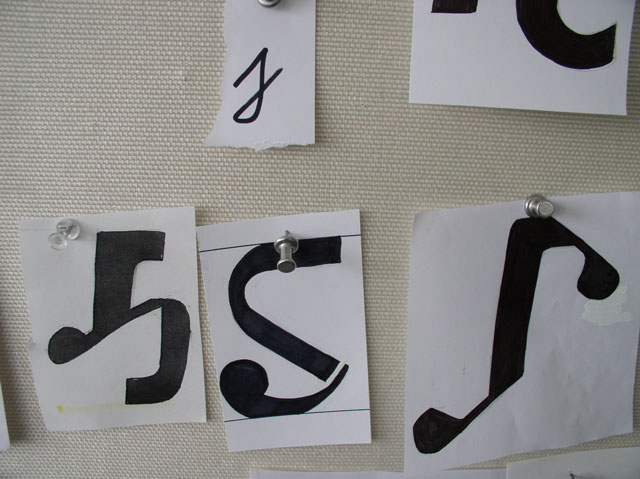
![]() day 1 : day 2 : day 3 : day 4 : day 5 : day 6 : day 7 : final result ![]() The third day the students began the day by placing each their designated characters from the selected aesthetic on the wall. By categorizing the characters the students then began a discussion over which characters were working aesthetically, conceptually, and in relation to the other forms. The diversity in forms from one character to another challenged the group in choosing a selective set that best represented the visual direction that they thought the typeface should follow. A wall of selected characters was formed (row 4). Several studies were created using the selected characters to find problems and positive aspects of the characters. The group then decided on a common word 'HAMBURGE" to explore individually with the selected characters (row 5 & 6). Each student resolved the word using his/her interpritation of the typeface. During the discussion of these explorations a single example was choosen, (last square). For tommorrow the students were given a few characters to digitalize. ![]()
![]() 6 comments so far: read comments ![]() ![]() The HAMBURGLAR -- Wednesday, April 9 2003, 04:56 am That DETROIT crew is taking to the meat! Looks good. Some of the type being generated has a nice blend of a strong metal type solidity, and fluid forms. The integration and attention to more fluid curves and spacing seems to be the direction of the final selection, which I think is going to produce a nice final piece. NICE WORK KEEP IT UP Bas -- Wednesday, April 9 2003, 10:01 am that's getting somewhere. Fuck the contrast, it's good that you skipped it. The more 'metal' like, the stronger it gets to me. I think for the one which was chosen in the end (last picture), it can stil have a more though character. Now it still looks a bit in between to me. Not really curly or organic, but also not very 'heavy metal' (!) or though. I would definetely make it more stronger without taking the life away there. But very simple things, like the ending of the 'm' can already bring lots of life in there. Next to this, I have the feeling that the inner forms are too different (size, form, feeling> unify!). And also the thin parts are too thin and likely to break or at least very hard to cut out of metal in the end. Bas -- Wednesday, April 9 2003, 10:01 am o ja, maybe you are interested in the work of the Dutch master of metal type: http://www.atelierreneknip.nl/ Kelli -- Wednesday, April 9 2003, 04:34 pm All this type drawing reminds me of my first typography class at CCS... I think we had to draw Helvetica by hand and it was hard. It's nice to see people working together to make type. I hope when it's all said and done some of you feel the urge to stencil meaningful messages on the vacant walls of our great city. Viva La Stencil! +++(o_0)+++ Kelli -- Wednesday, April 9 2003, 04:46 pm All this type drawing reminds me of my first typography class at CCS... I think we had to draw Helvetica by hand and it was hard. It's nice to see people working together to make type. I hope when it's all said and done some of you feel the urge to stencil meaningful messages on the vacant walls of our great city. Viva La Stencil! +++(o_0)+++ chester -- Wednesday, April 9 2003, 05:25 pm It's nice to see the letterforms coming together. The work of all of the contributors now has to be honed to the same aesthetic, which i can see starting. __ But... As a stencil face, you have some issues to deal with. The 'B' is presently not a good stencil, as its internal shape is too delicate, hanging on only by the top left corner. The same applies to the 'A' and its bottom left corner. __ A great deal of the character/personality of this typeface will come from the way that the stencil 'features' are addressed. __ Keep up the good work, and don't forget to read your design brief every day, and eat your veggies. Best, c ![]()